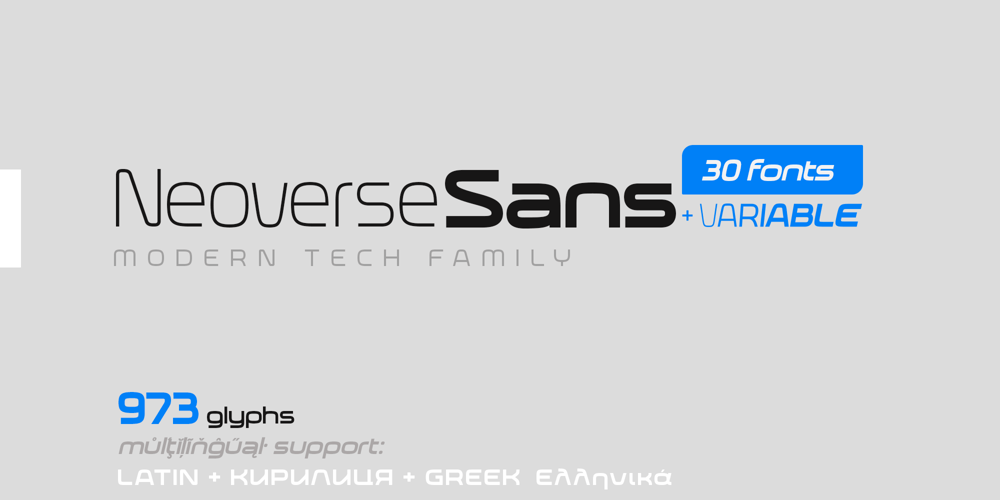
Neoverse Sans
Neoverse Sans font
Neoverse Sans Font Family was designed by Dmytro Poliakh and published by Sentavio. Neoverse Sans contains 31 styles and family package options. Neoverse Sans is futuristic hitech sans family with 30 fonts + 1 Variable.With a clean, simple, and minimal aesthetic, Neoverse Sans is a functional workhorse with 5 weights and 3 Width, complete Latin advanced language support, Slavic Cyrillic and Modern Greek Languages support, precise hand-adjusted kerning, and a variable version for maximum versatility.